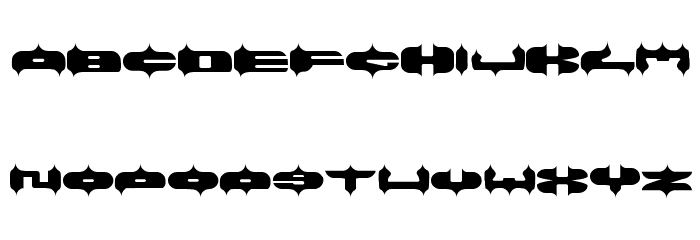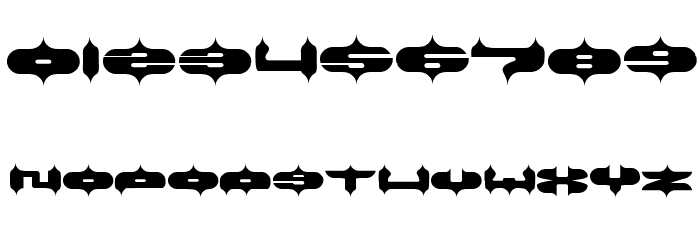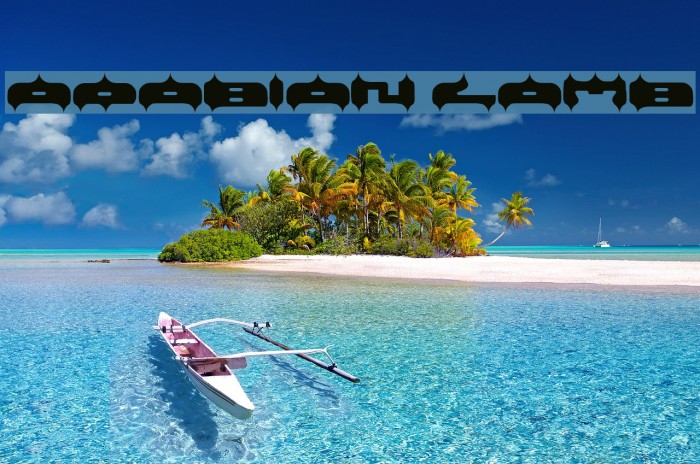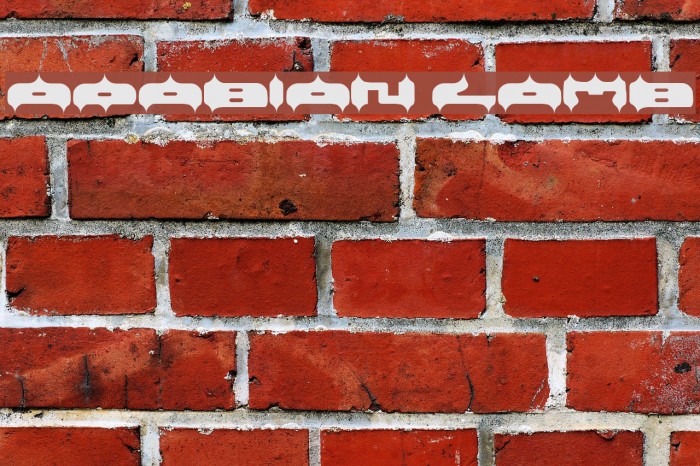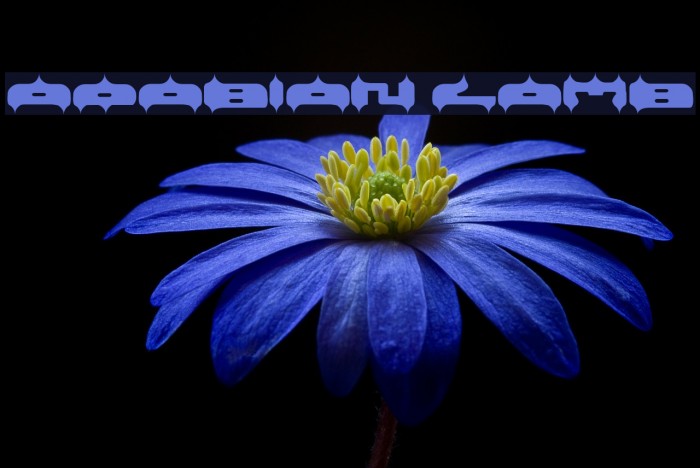
ARABIAN LAMB Font
This font features a bold and decorative style with unique, intricate shapes that resemble traditional Middle Eastern patterns. The characters are heavily stylized, with sharp edges and symmetrical designs that create a visually striking appearance. The font's boldness and distinctiveness make it stand out, with each letterform crafted to capture attention. The uppercase and lowercase letters maintain a consistent design theme, while numbers and special characters are equally ornate, adding to the overall cohesive look. The font's artistic flair is ideal for projects that require a touch of exotic elegance and cultural richness.
A bold, decorative font with intricate, Middle Eastern-inspired designs.
- Font: ARABIAN LAMB
- Proposed Projects: Ideal for branding, posters, event invitations, and cultural projects that require a unique and exotic aesthetic.